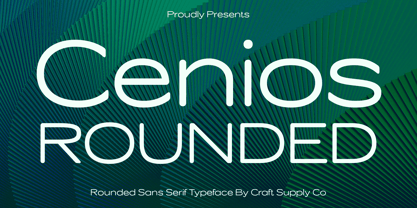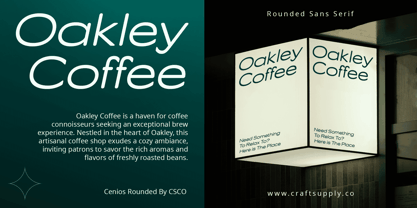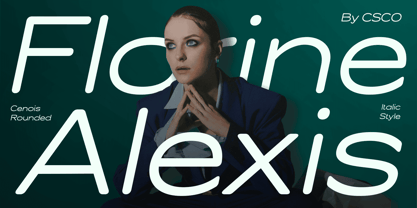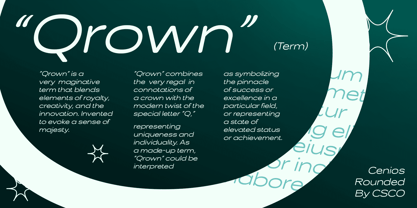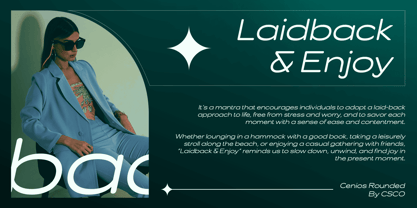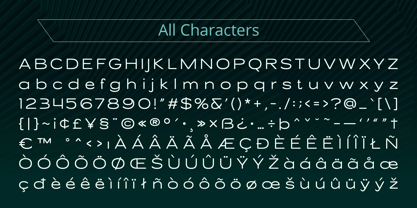
Cenios Rounded
by Craft Supply Co
The Cenios Rounded Font Family was designed by Trio Nazzar Saputra, Wahyu Hadi Yuana and published by Craft Supply Co. Cenios Rounded contains 2 styles and family package options. More about this family
Cenios Rounded: Sleek and Corporate Low Contrast Sans Serif Cenios Rounded boasts a low-contrast sans serif design, maintaining a clean and minimalist aesthetic ideal for corporate applications. Neat and Tidy Appearance With its precise lines and uniform strokes, This font exudes a sense of neatness and tidiness, perfect for conveying professionalism and reliability. Rounded Stem Ends The font’s rounded stem ends add a subtle touch of friendliness and approachability, balancing its corporate appeal with a hint of warmth. Ideal for Corporate Use Designed with corporate applications in mind, This font is the perfect choice for branding, presentations, and corporate communications, where clarity and consistency are paramount. Corporate Elegance with a Friendly Touch This font offers a harmonious blend of corporate elegance and approachable design elements, making it an excellent option for businesses seeking a polished yet welcoming typographic solution. With its low-contrast sans serif style and rounded stem ends, This font delivers a professional and inviting aesthetic suitable for a wide range of corporate applications.
Designers: Trio Nazzar Saputra, Wahyu Hadi Yuana
Foundry: Craft Supply Co